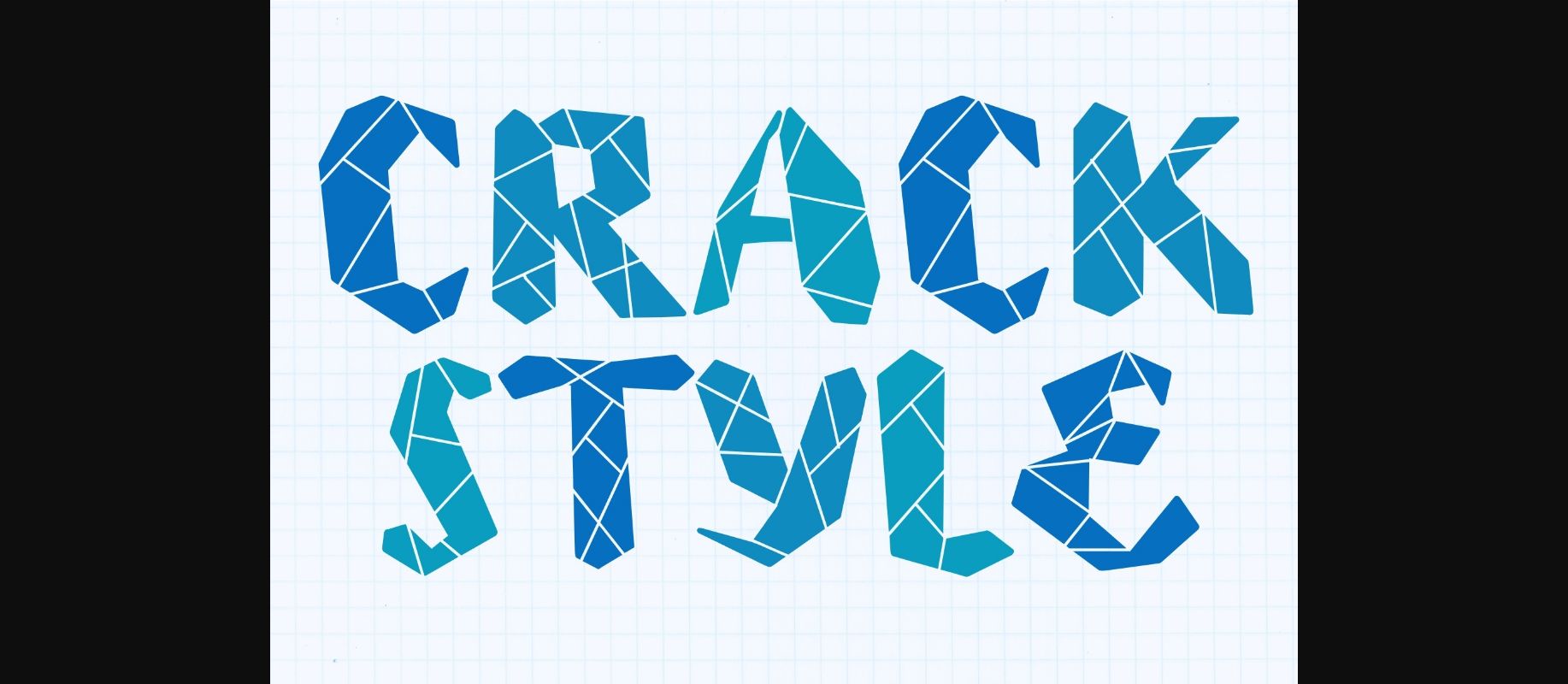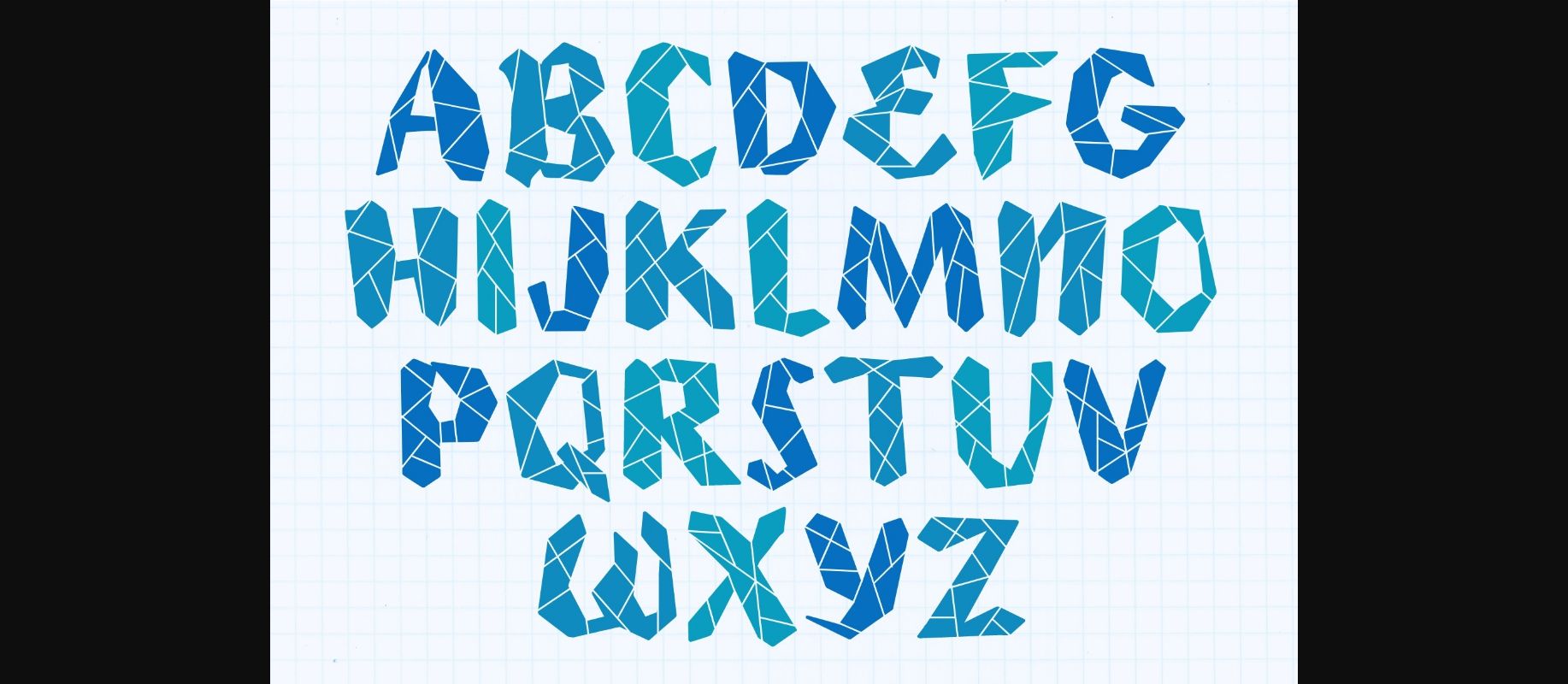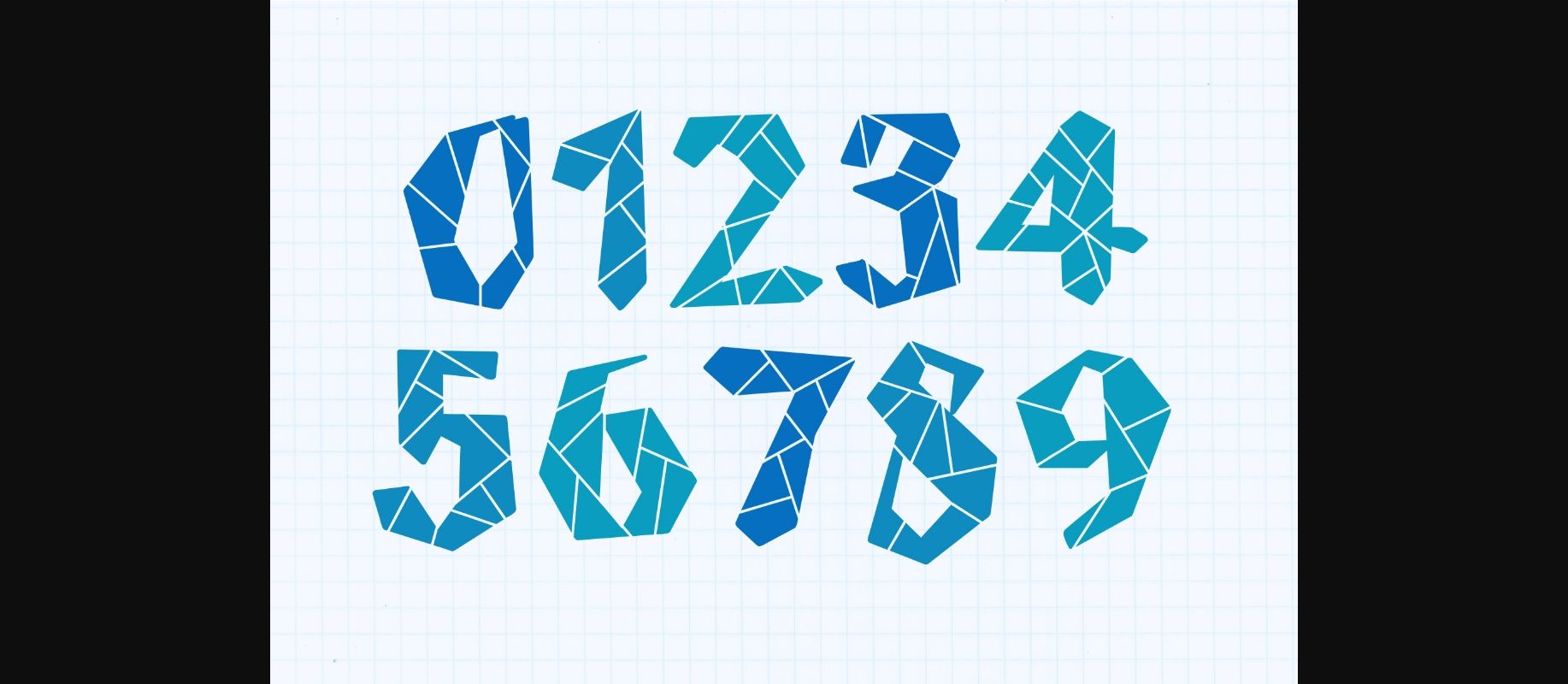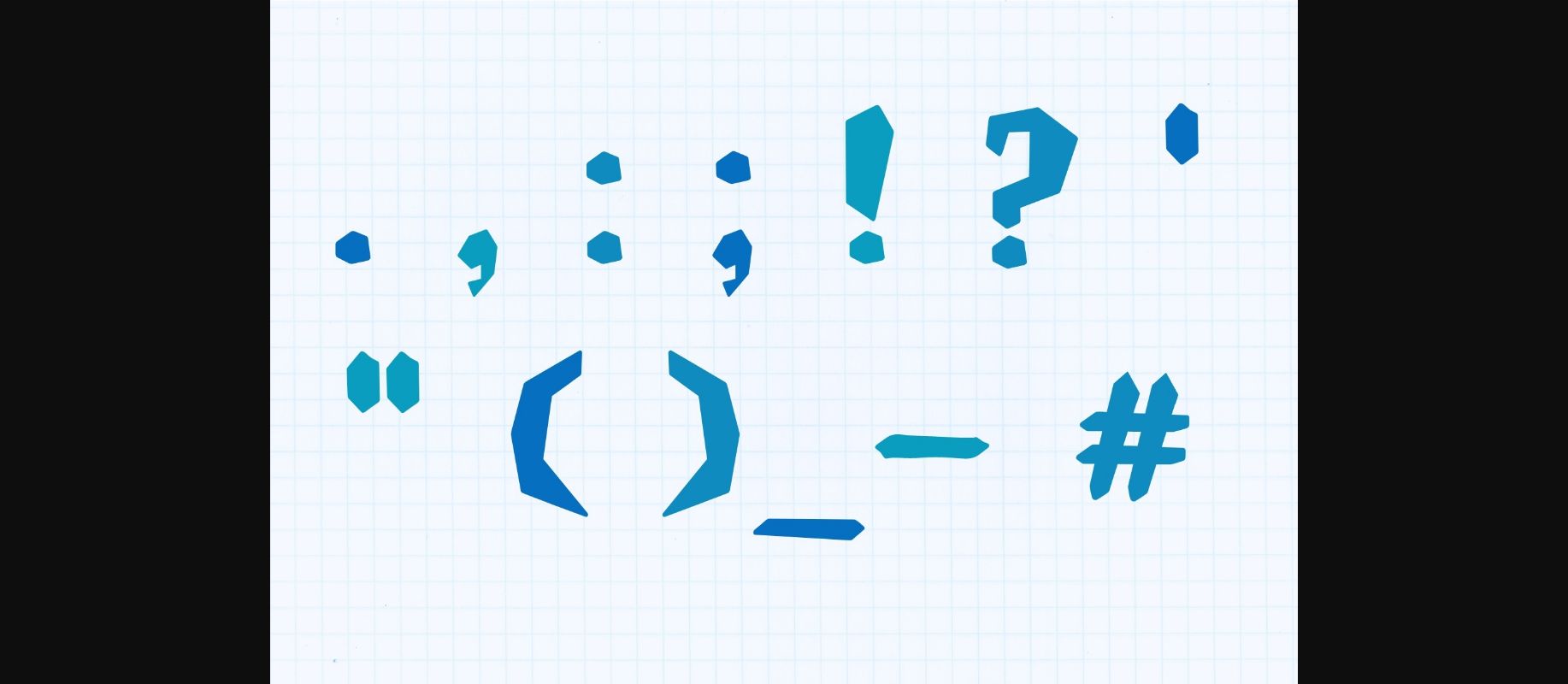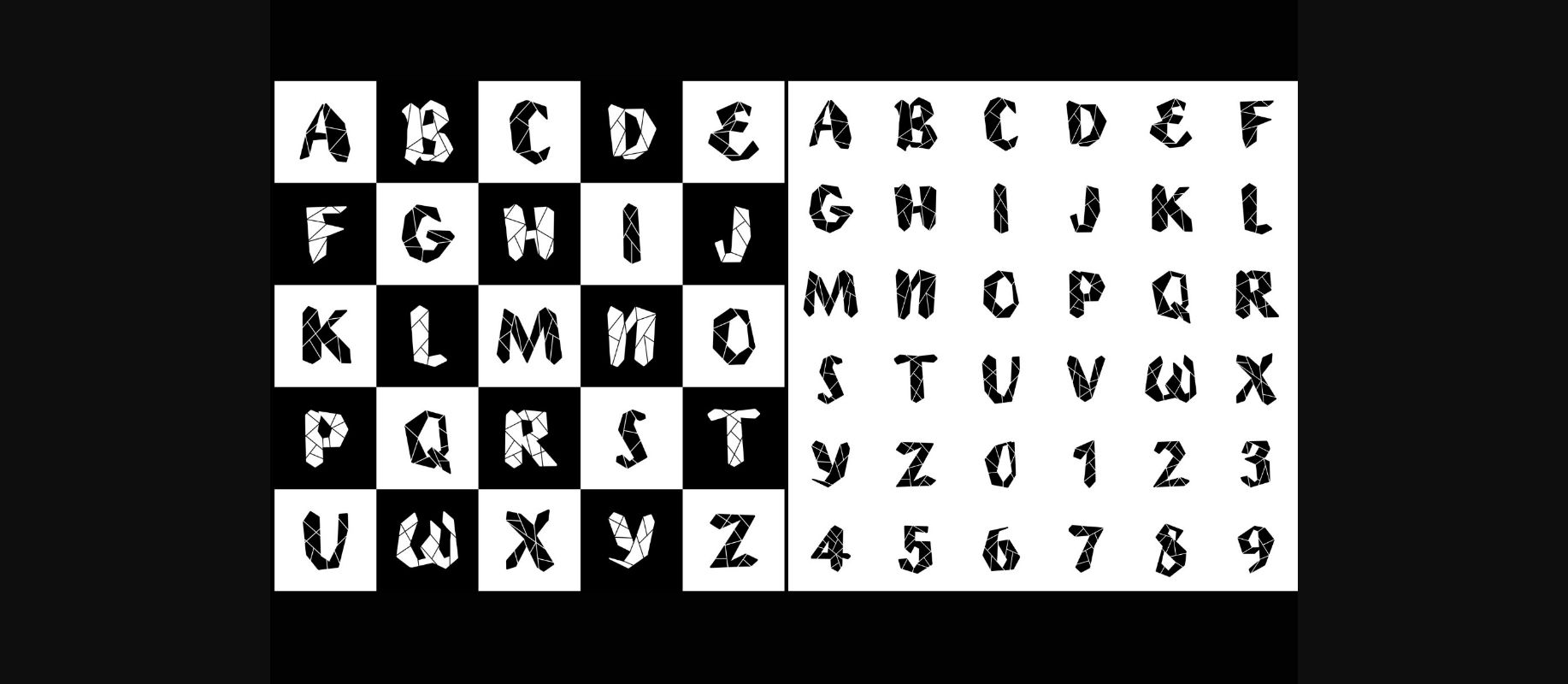
Crack Style Font
About Crack Style Font
Unlock the extraordinary with Crack Style, the revolutionary font that redefines design. Inspired by fractured glass, each character carries an aura of resilience and artistry. Perfect for branding, packaging, and social media, this avant-garde typeface injects your projects with a bold, shattered elegance. Infuse your creations with the allure of “Crack Style” and witness the transformative power of visual storytelling.